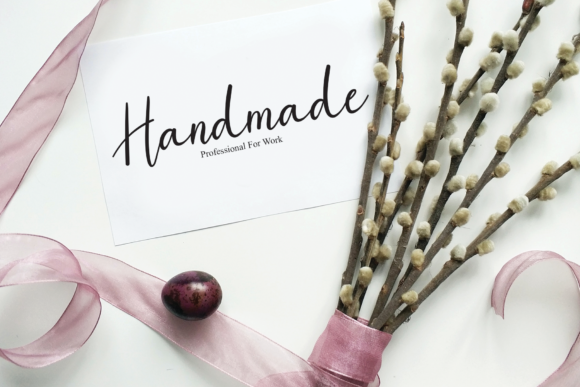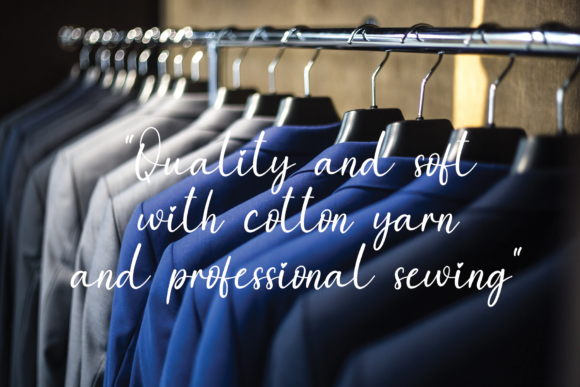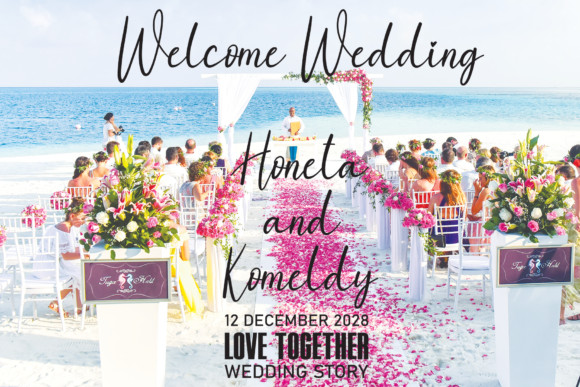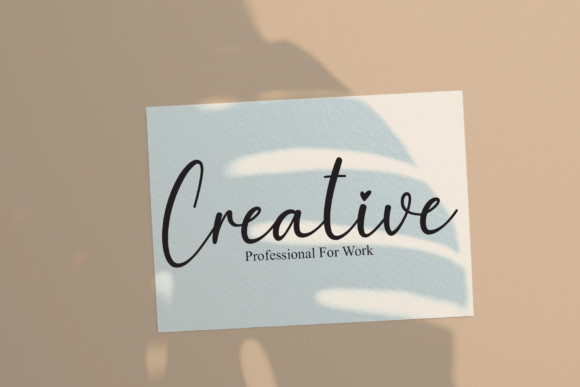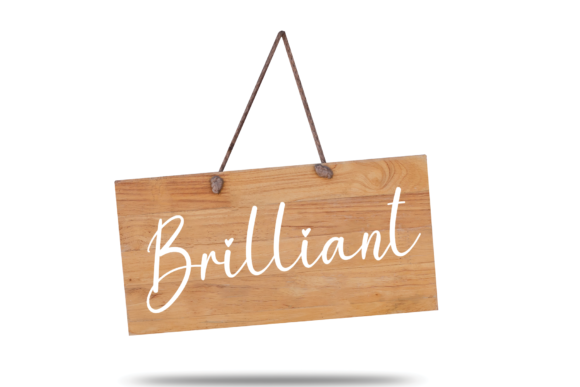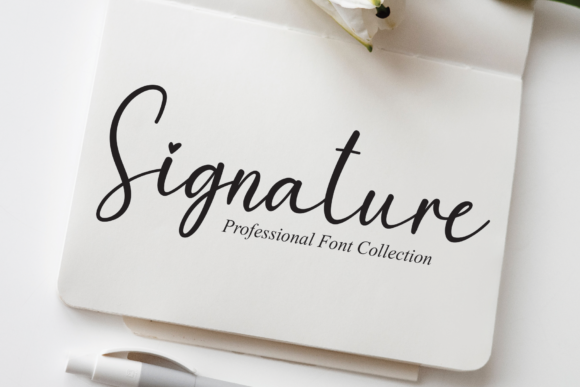
Introduction to Jesika Font
Jesika is a thin lettered and graceful script font.
Fall for its ravishing style and use it to create gorgeous wedding invitations, beautiful stationary art, eye-catching social media posts, and much more .
Key Features of Jesika Font
Why Choose Jesika Font?
Jesika Font offers exceptional quality and versatility, making it a valuable addition to your design toolkit. Whether you’re creating for personal projects or commercial use, Jesika Font delivers professional results.